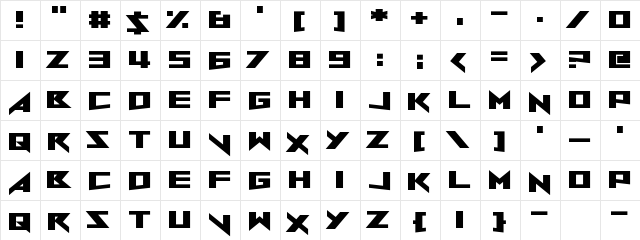
North to South Regular
| Designer | NAL |
Design Context for North to South Typeface
North to South is a composed and adaptable typeface that performs quietly and consistently across a wide range of design contexts.